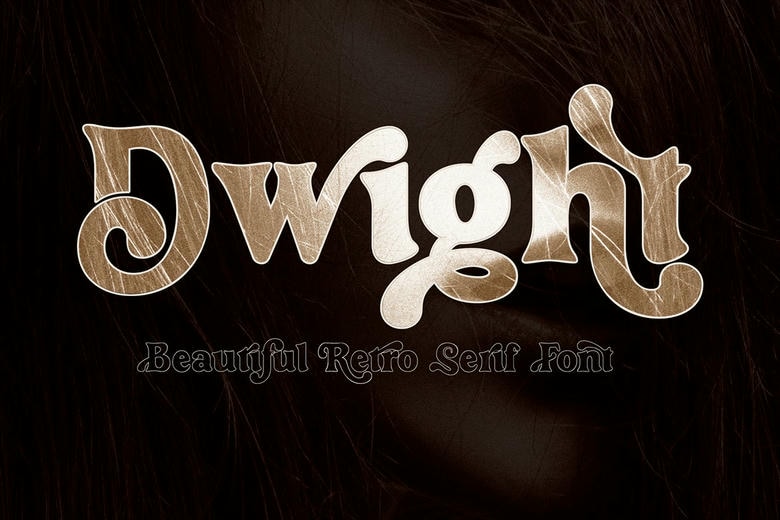
Dwight Font
Dwight is a Serif font family, which has a strong and bold character with two variants, Dwight gives a clear and elegant look to logos, quotes, advertisements and more.
Dwight is a versatile typography filled with the character you want, Dwight has standard styles, Stylistic Alternates and ligatures. and includes upper and lower case letters, numbers and punctuation marks.
Dwight Serif Font